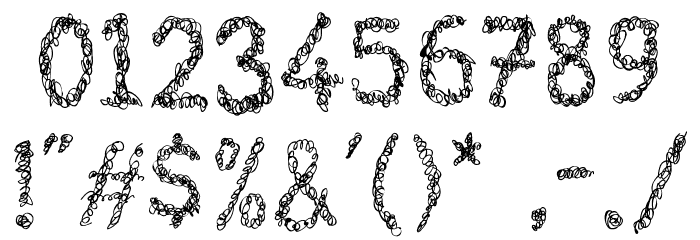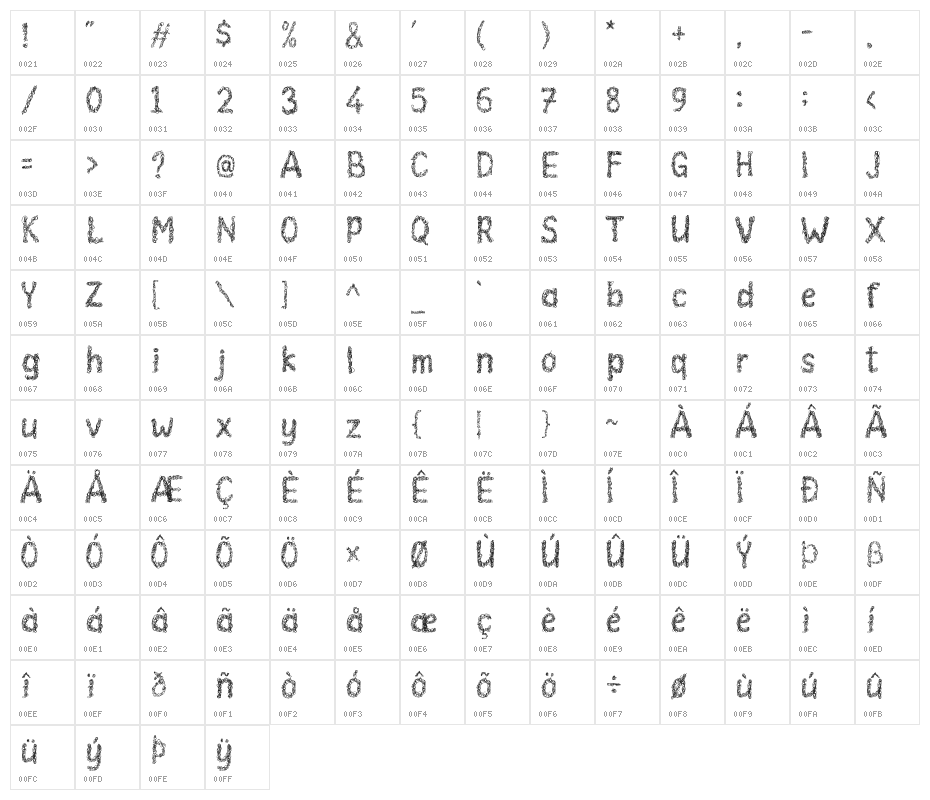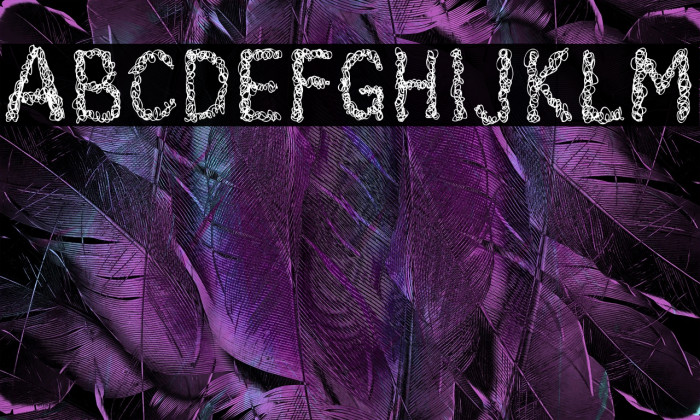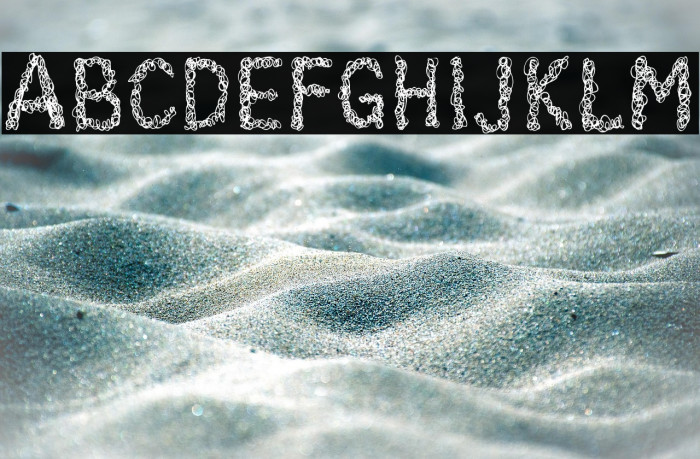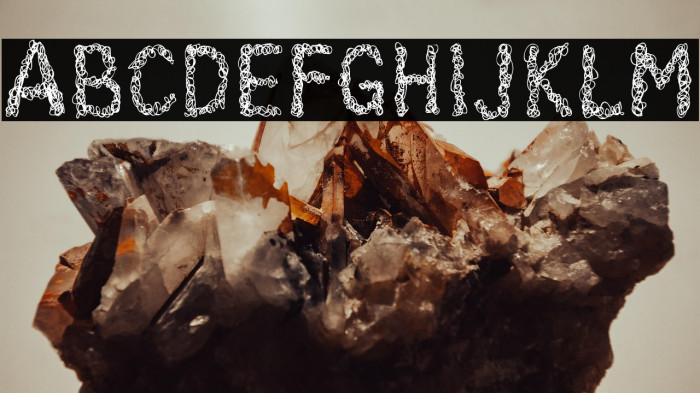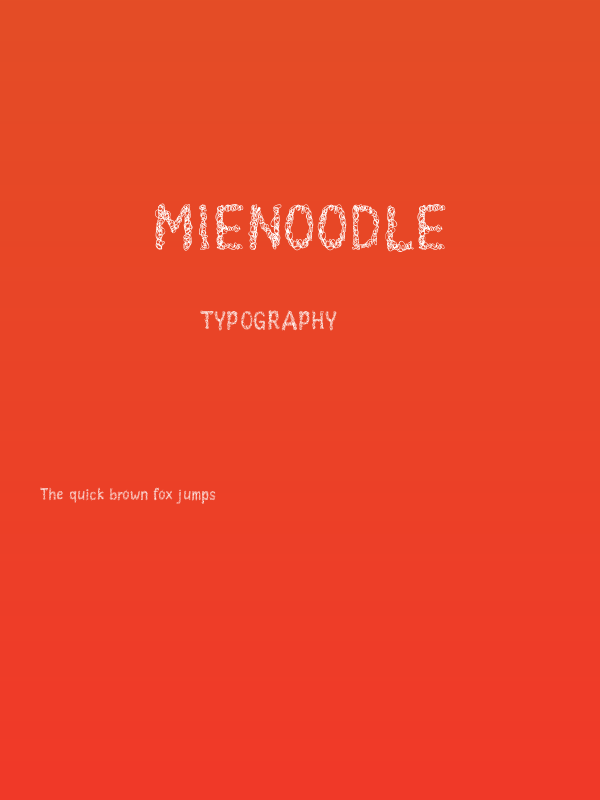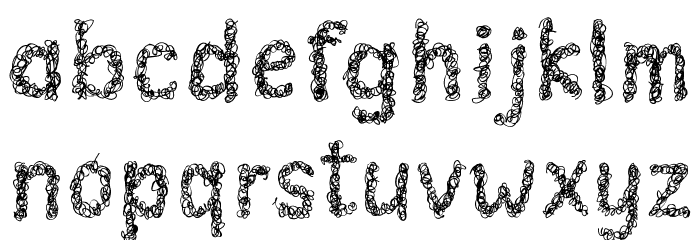
MieNoodle Font
MieNoodle Description
This font features a unique, hand-drawn style with intricate loops and swirls forming each character. The letters appear as if they are composed of tangled lines, giving a playful and artistic feel. The uppercase and lowercase letters maintain a consistent design, with numbers and special characters following the same aesthetic. The overall appearance is whimsical and decorative, making it stand out for creative projects. The font's intricate design may affect readability at smaller sizes, but it excels in capturing attention with its artistic flair.
| Proposed Projects | Ideal for artistic projects, greeting cards, posters, and creative branding. |